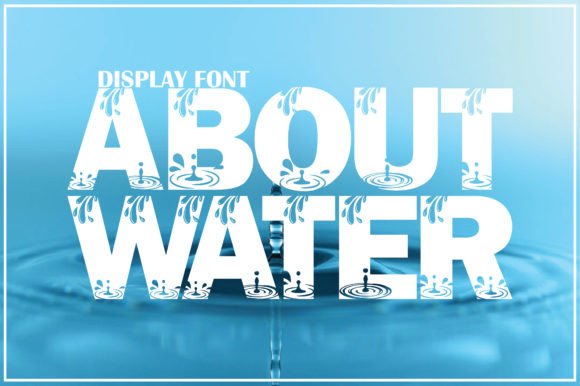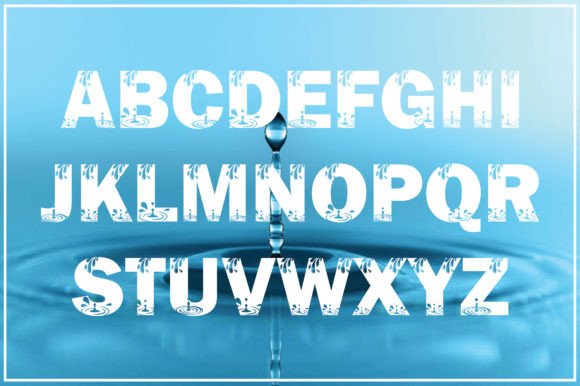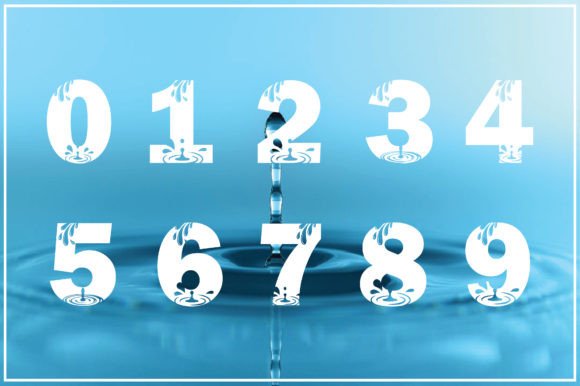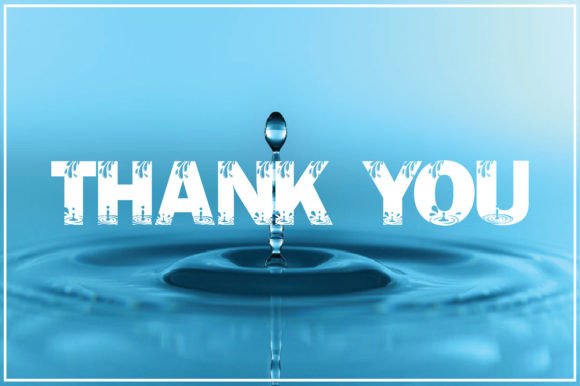
About Water Font: A Unique Decorative Display for Creative Projects
About the About Water Font
Explore the possibilities with About Water Font, a font that offers both beauty and functionality. About Water is a dramatic decorative font. It is perfectly suitable for any design or crafty idea! Add it confidently to your projects and you will love the results!
About Water’s dramatic flair makes it ideal for headlines, short impactful statements, and logos where a strong visual presence is desired. It excels in branding for luxury goods, posters for events with a theatrical feel, and packaging that demands attention. However, its decorative nature makes it unsuitable for body text or UI elements where readability is paramount; long paragraphs set in About Water would be difficult to read.
Pair About Water with a clean sans-serif like Open Sans for a balanced contrast—the sans-serif’s neutrality grounds the font’s boldness. For a more playful feel, a rounded geometric sans-serif could work, while a classic serif such as Garamond offers a sophisticated counterpoint.
The font projects a bold and elegant personality, conveying luxury and sophistication. Its slightly ornate detailing adds a touch of vintage charm without sacrificing modernity.
About Water Font Example